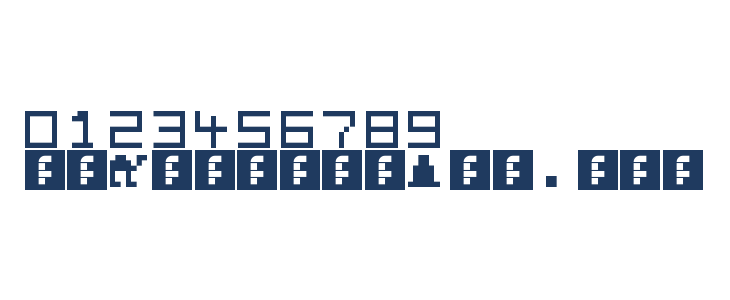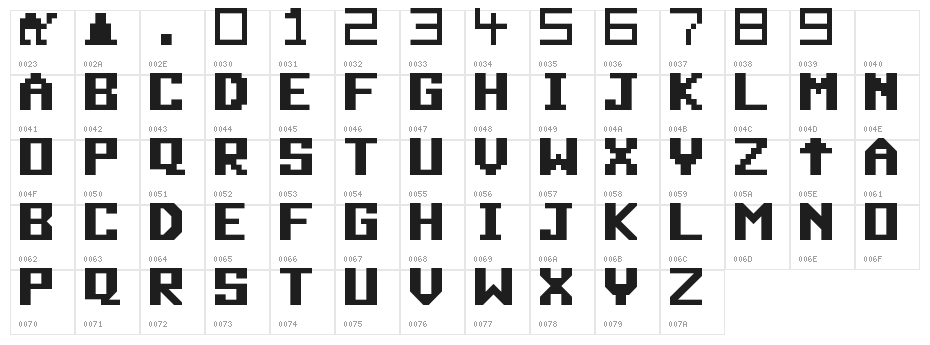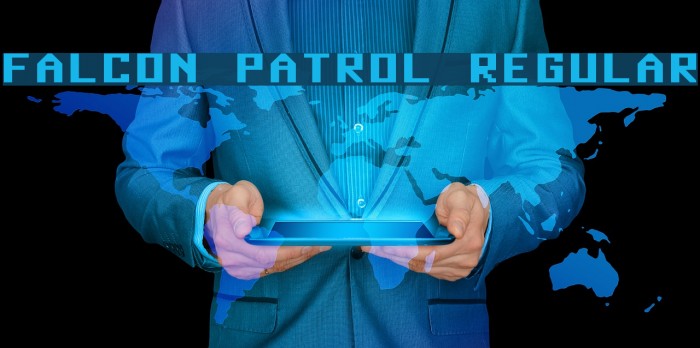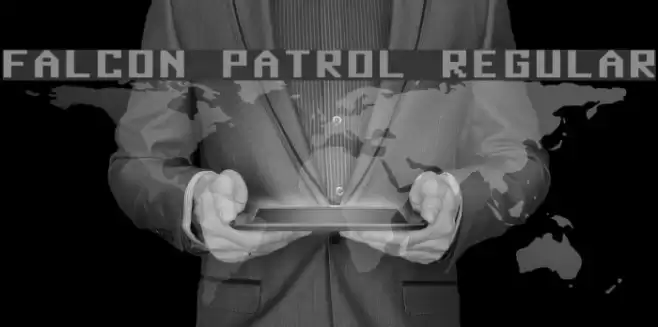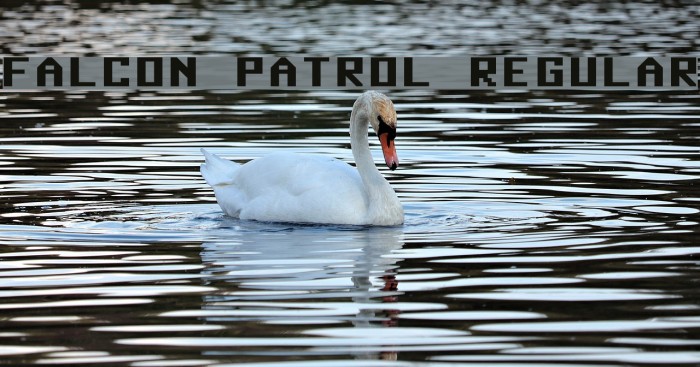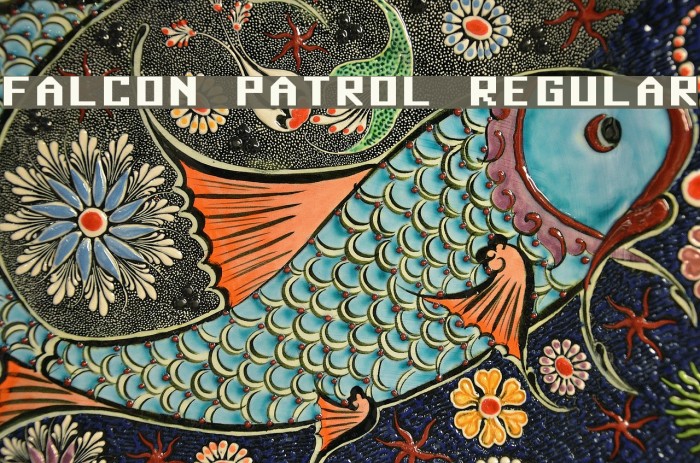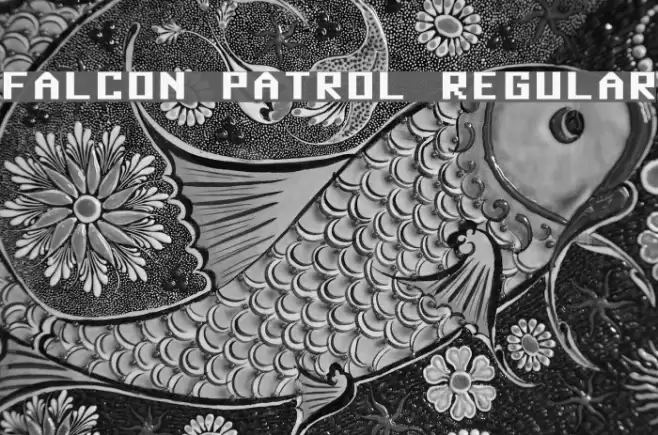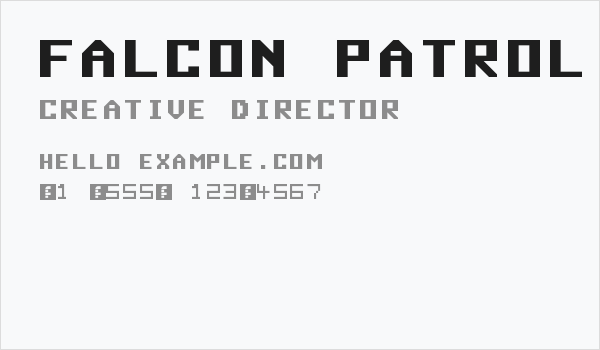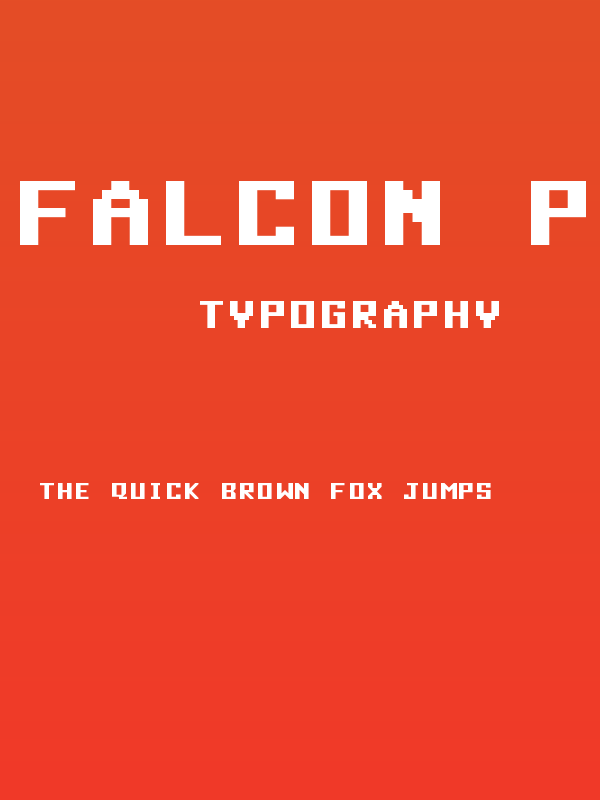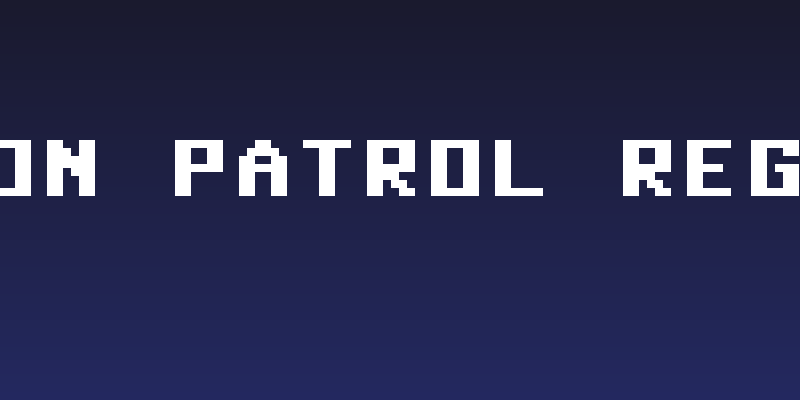
Falcon Patrol Regular Font
Falcon Patrol Regular Description
This font features a bold, pixelated design reminiscent of classic arcade games and retro digital displays. Each character is constructed with a blocky, geometric style, emphasizing sharp corners and straight lines. The uppercase and lowercase letters maintain a consistent height, contributing to a uniform appearance. The numerals and special characters follow the same pixelated aesthetic, ensuring cohesion across all glyphs. This font's nostalgic appeal is perfect for projects aiming to evoke a sense of vintage digital technology or retro gaming culture.
| Use Case | Logos, Posters, Digital Art |
| Proposed Projects | Ideal for retro-themed video games, digital art projects, nostalgic branding, and vintage-inspired posters. |